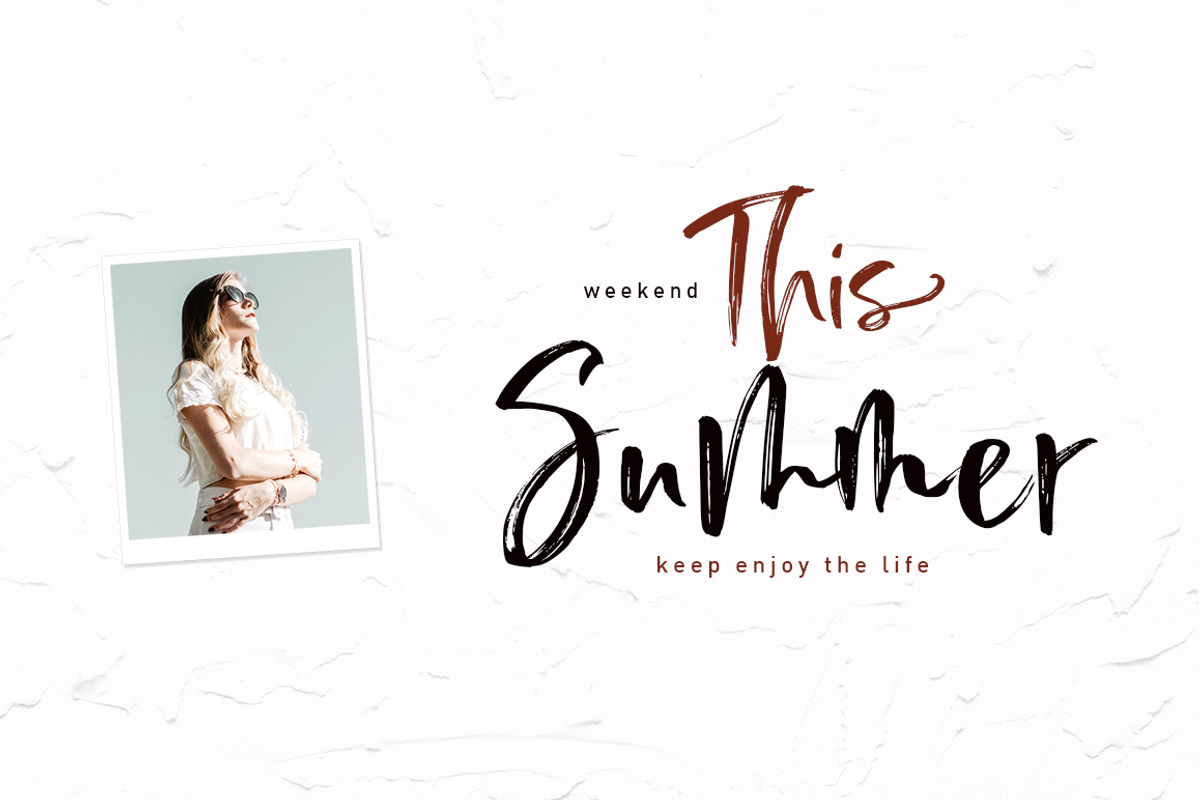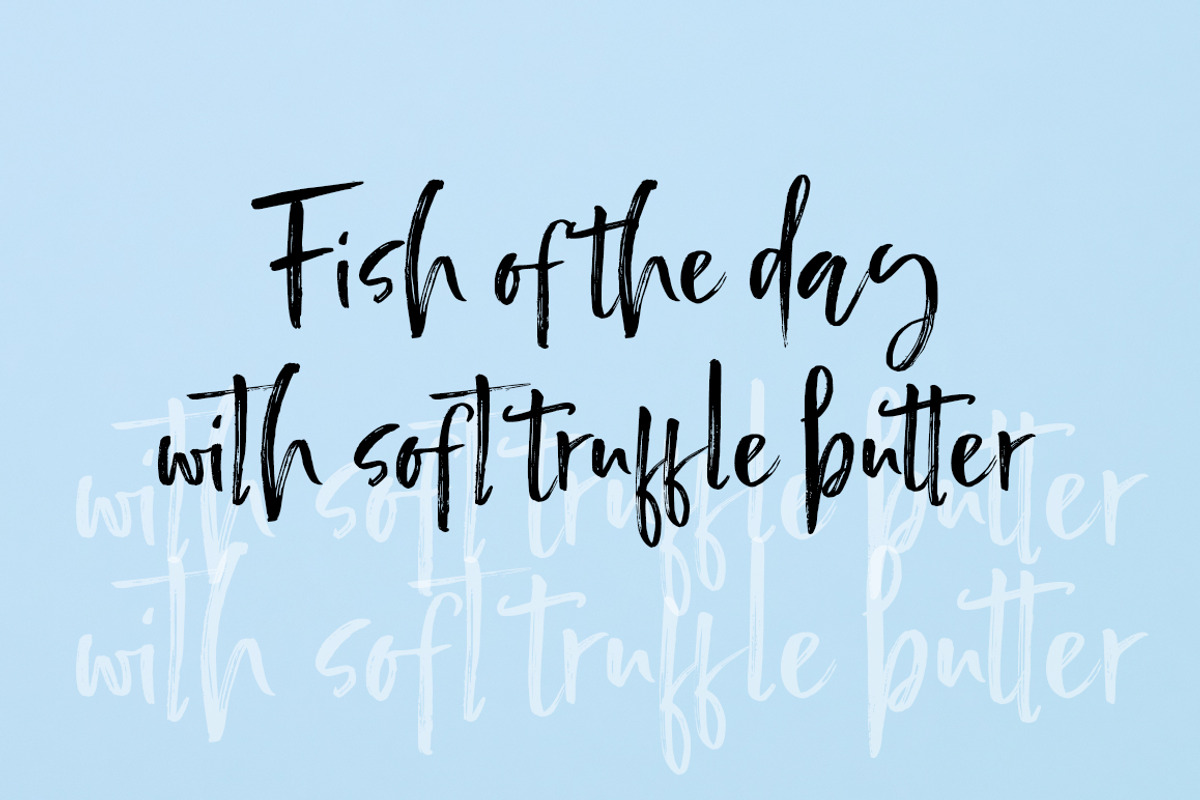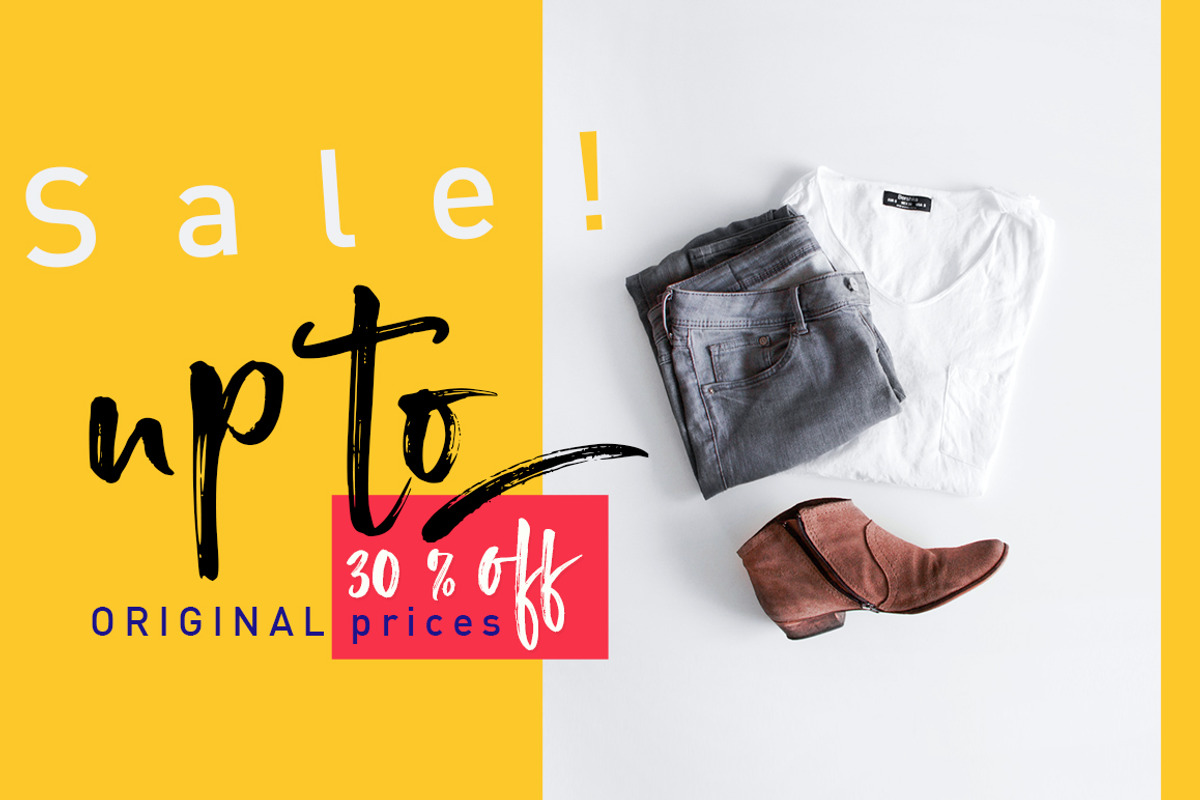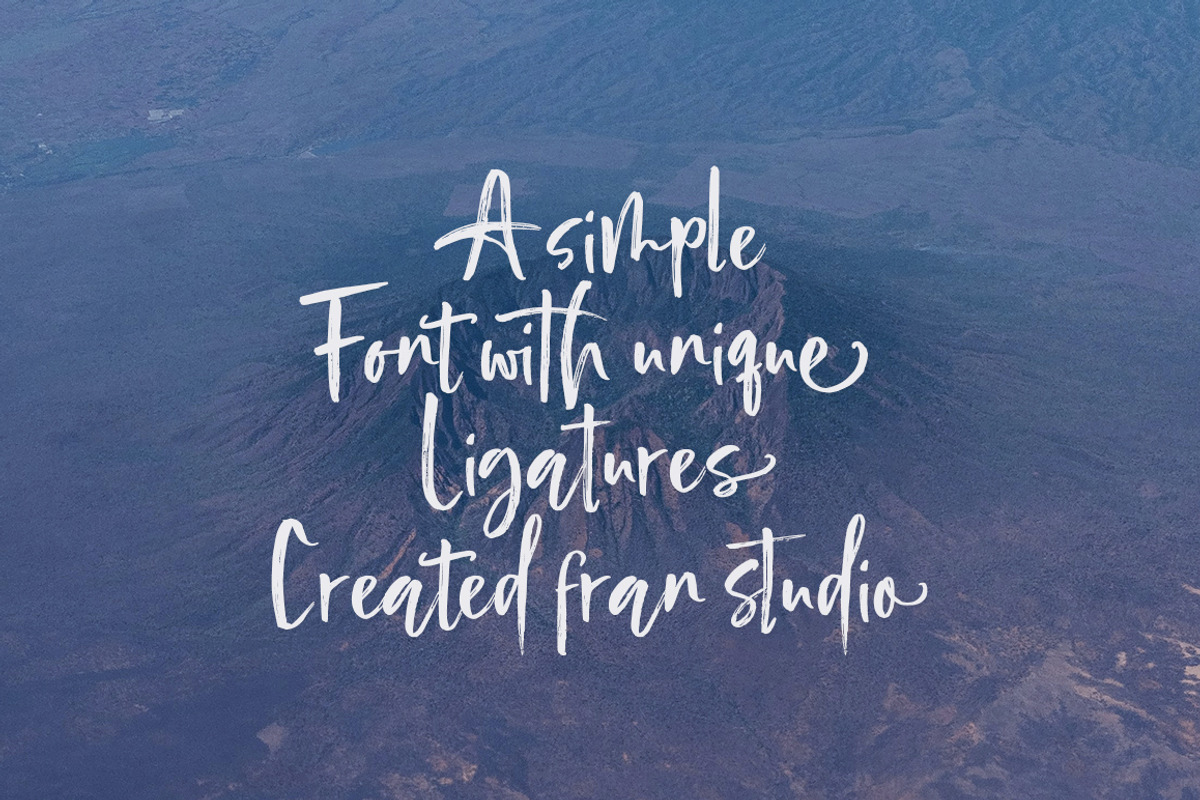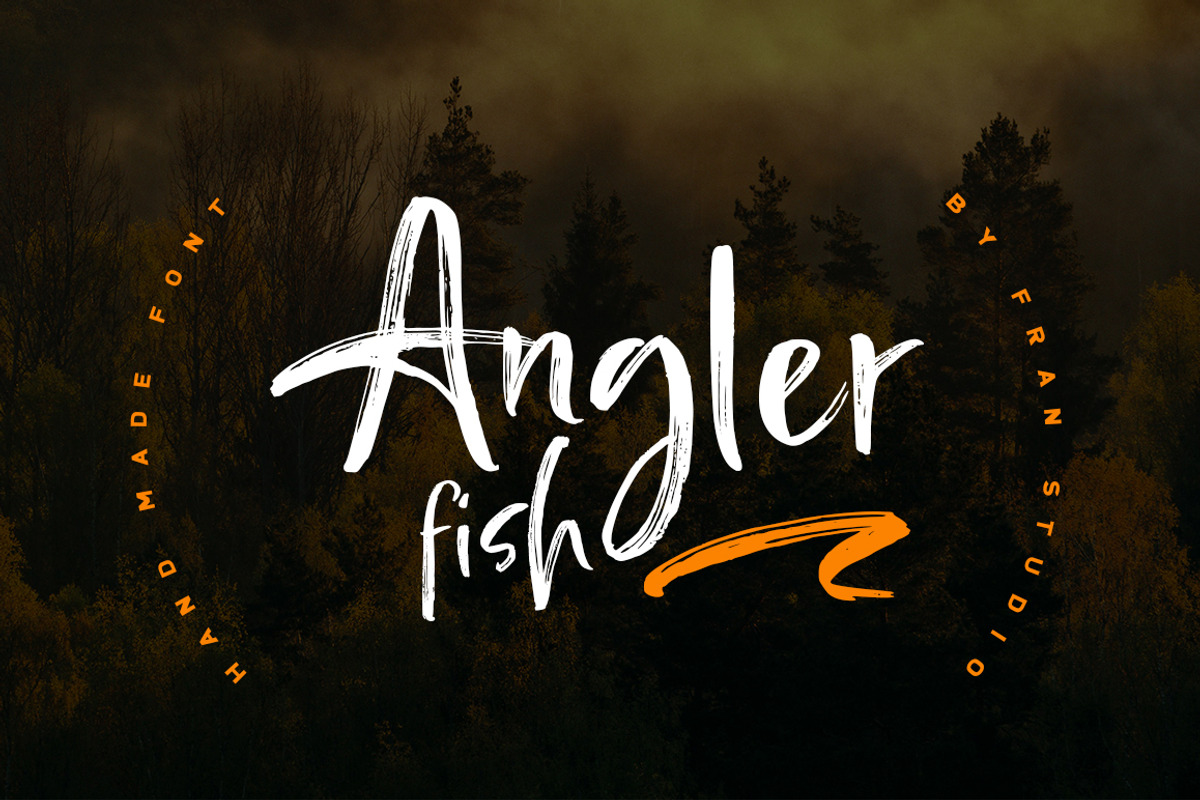
Angler Fish
Angler Fish is a very interesting new brush font. This font family is perfect for branding projects, logos, product packaging, posters, invitations, greeting cards, news, blogs, and more.
The Angler Fish offers OpenType features, several ligatures and swashes, initial and terminal letters, and international support for most Western languages.